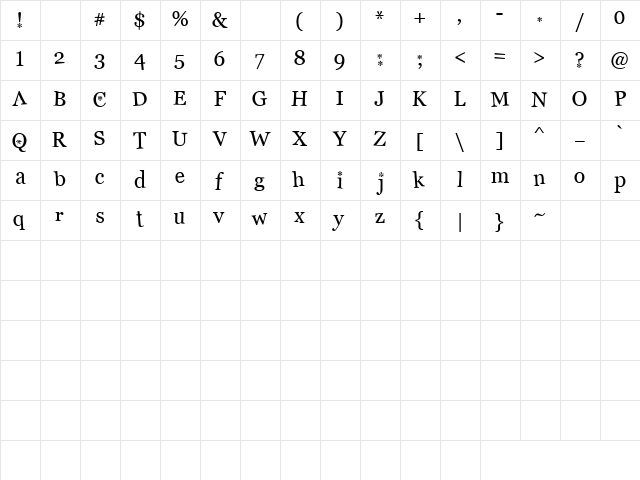
CK Twilight Regular
Design Context for CK Twilight Typeface
CK Twilight takes a measured approach to typography — its balanced proportions and neutral character make it a reliable workhorse for both digital and print work. Its slender proportions lend an understated elegance to any composition.